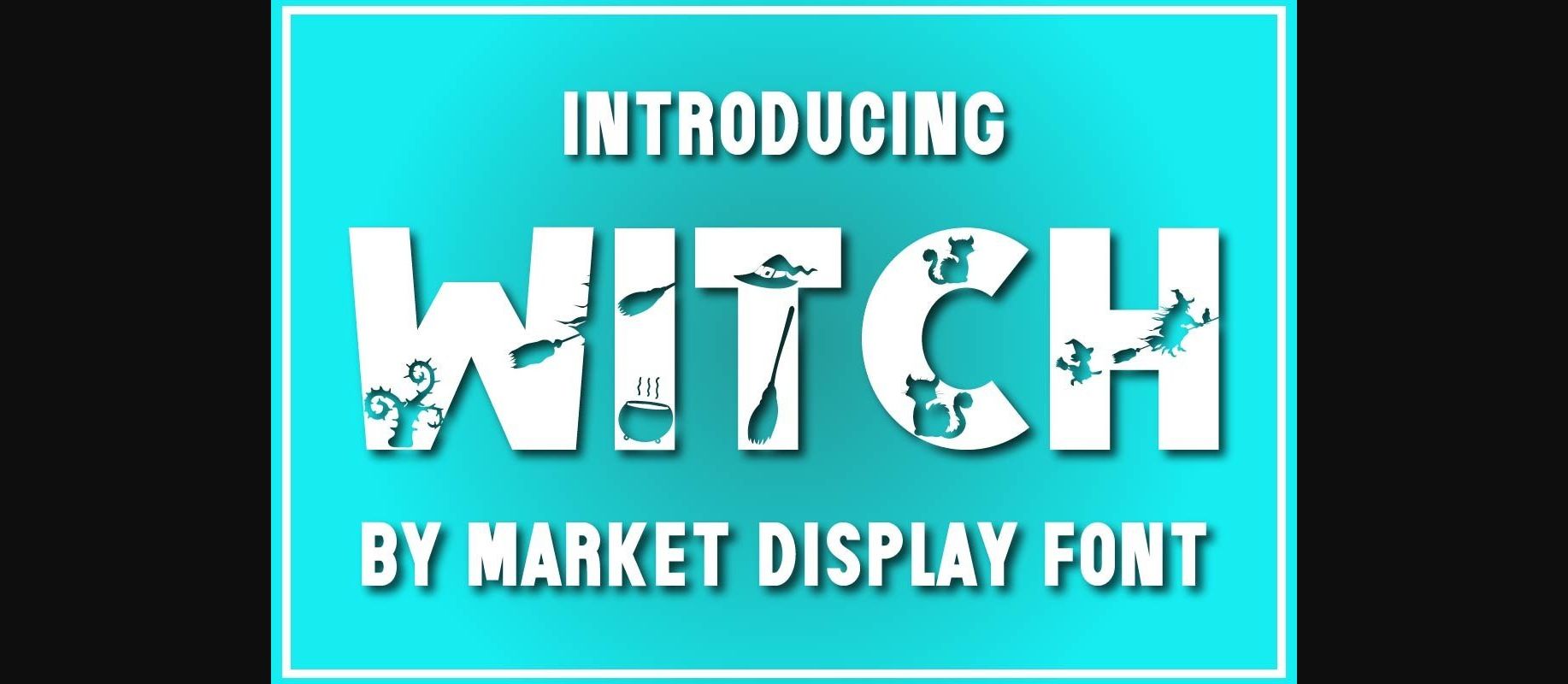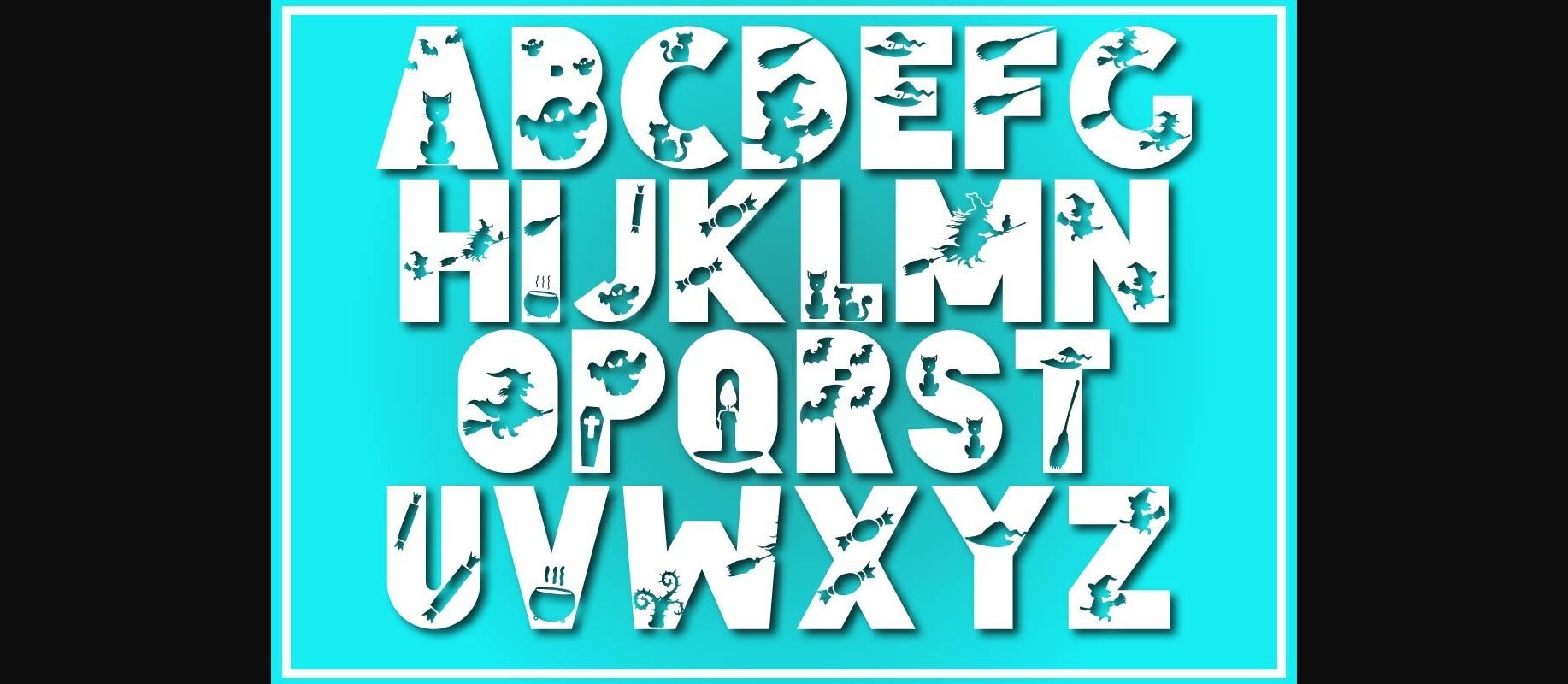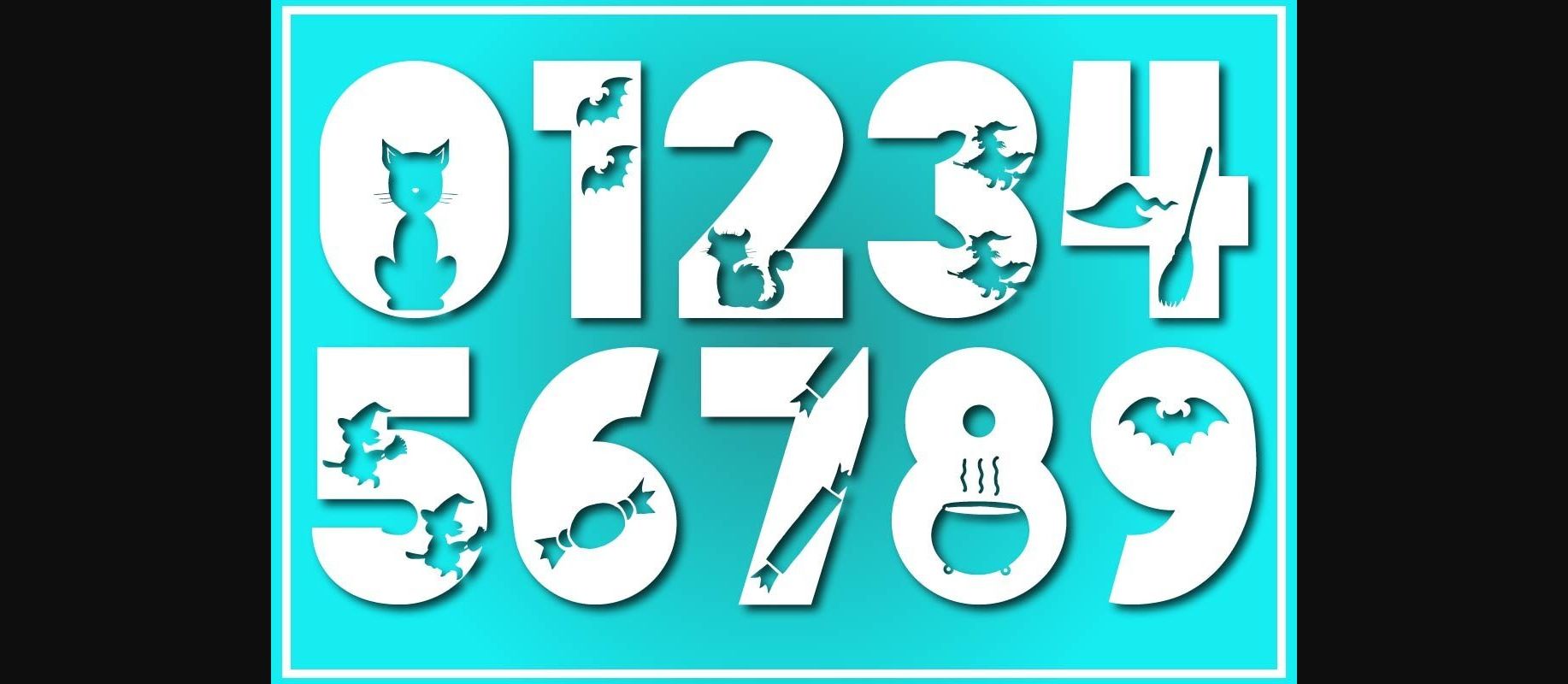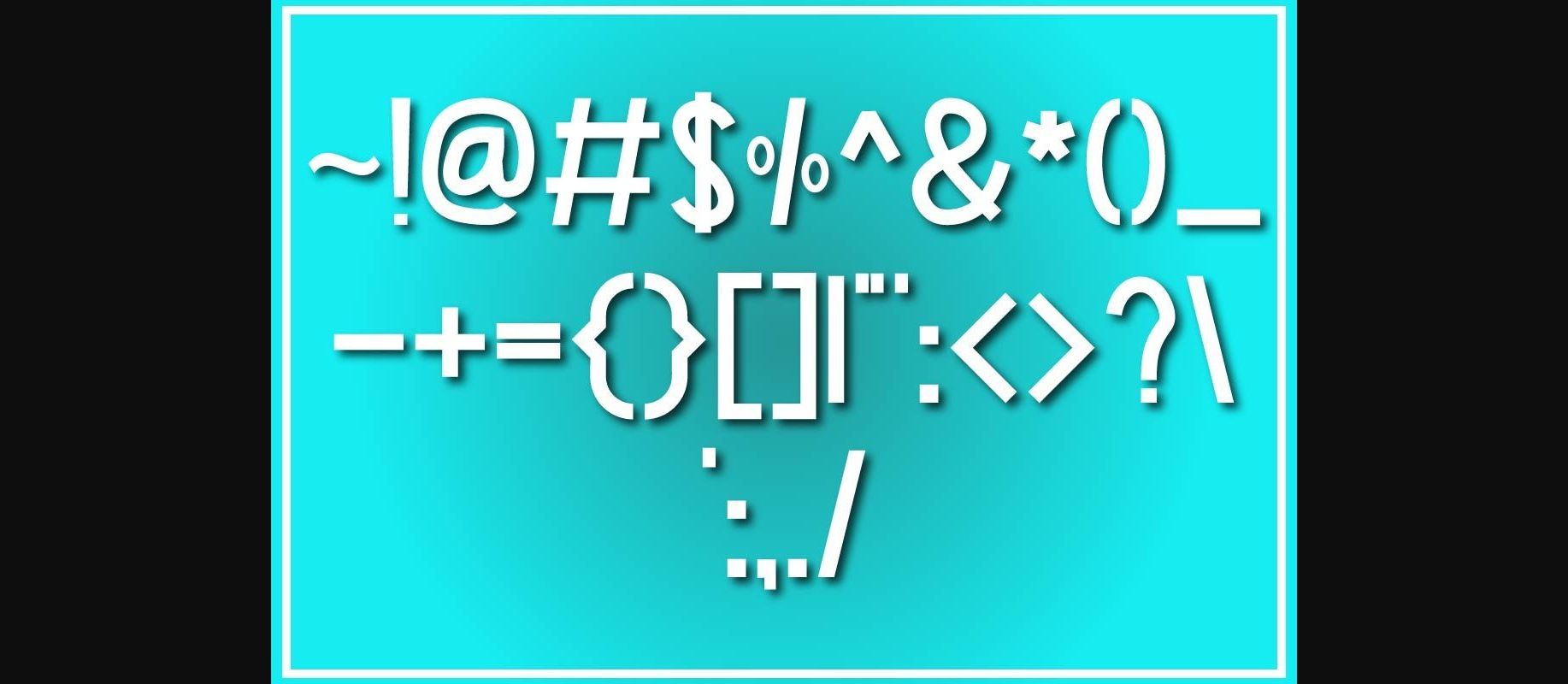
Witch Font
About Witch Font
Witch is a cool and scary-looking decorative font.
Add it confidently to your favorite creations, and let yourself be amazed by the outcome generated.